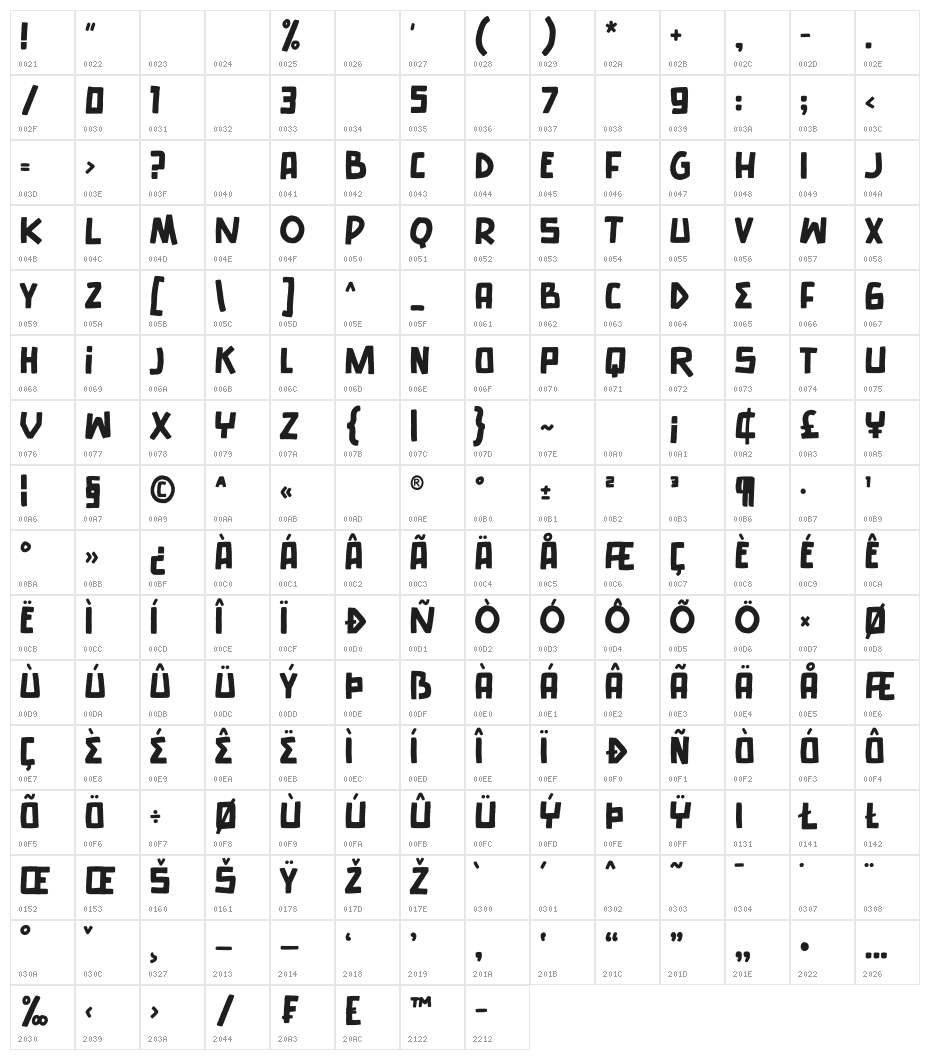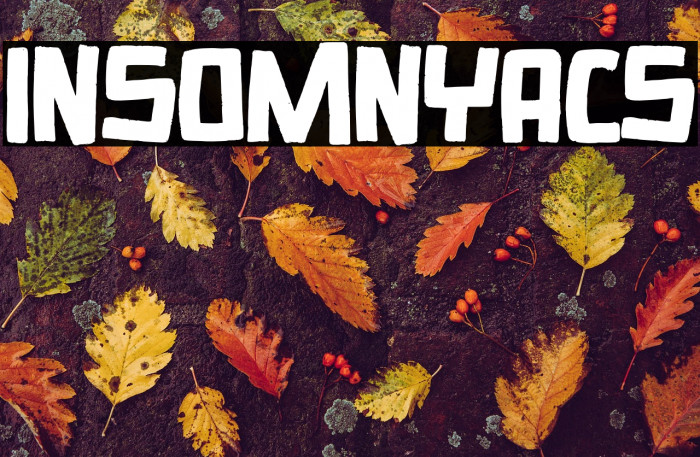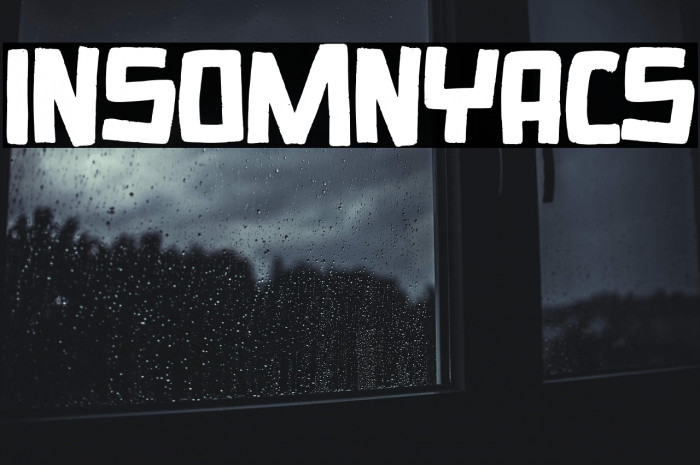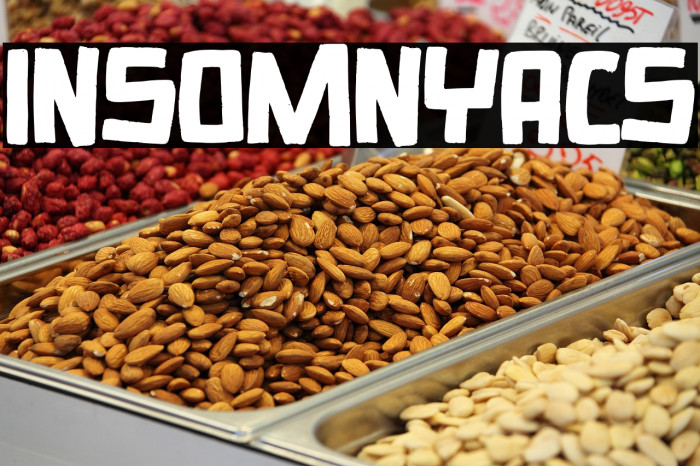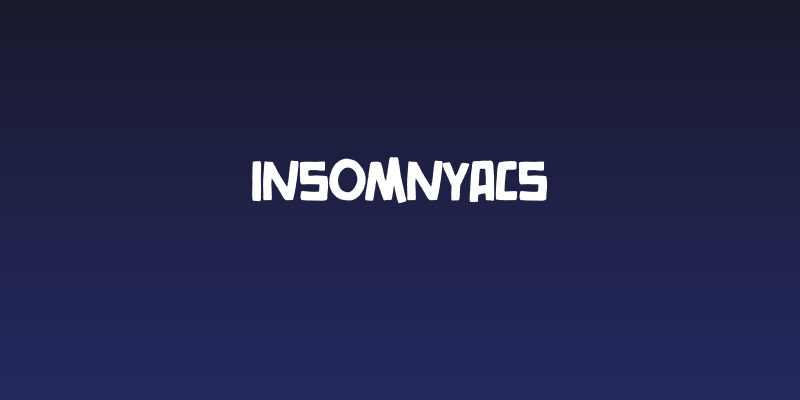
Insomnyacs Font
Insomnyacs Description
This font features a bold and playful style with a hand-drawn appearance. The characters are slightly irregular, giving it a whimsical and informal feel. The uppercase letters are bold and rounded, while the lowercase letters maintain a consistent style with a touch of quirkiness. The numbers are equally bold and maintain the playful theme. Special characters are included, adding versatility to the font. The overall look is dynamic and energetic, making it suitable for creative and fun projects.
| Overall Style | Playful, Whimsical, Hand-drawn |
| Use Case | Headlines, Posters, Branding |
| Proposed Projects | Ideal for children's books, comic strips, playful branding, and creative posters. |